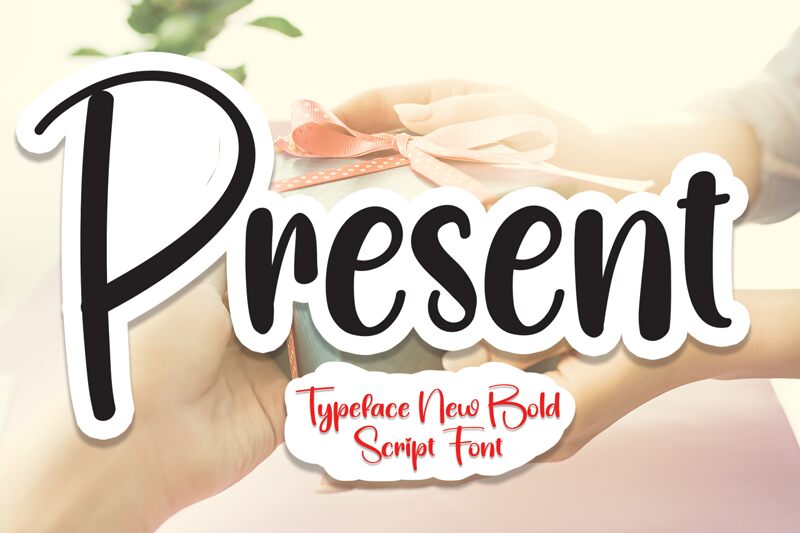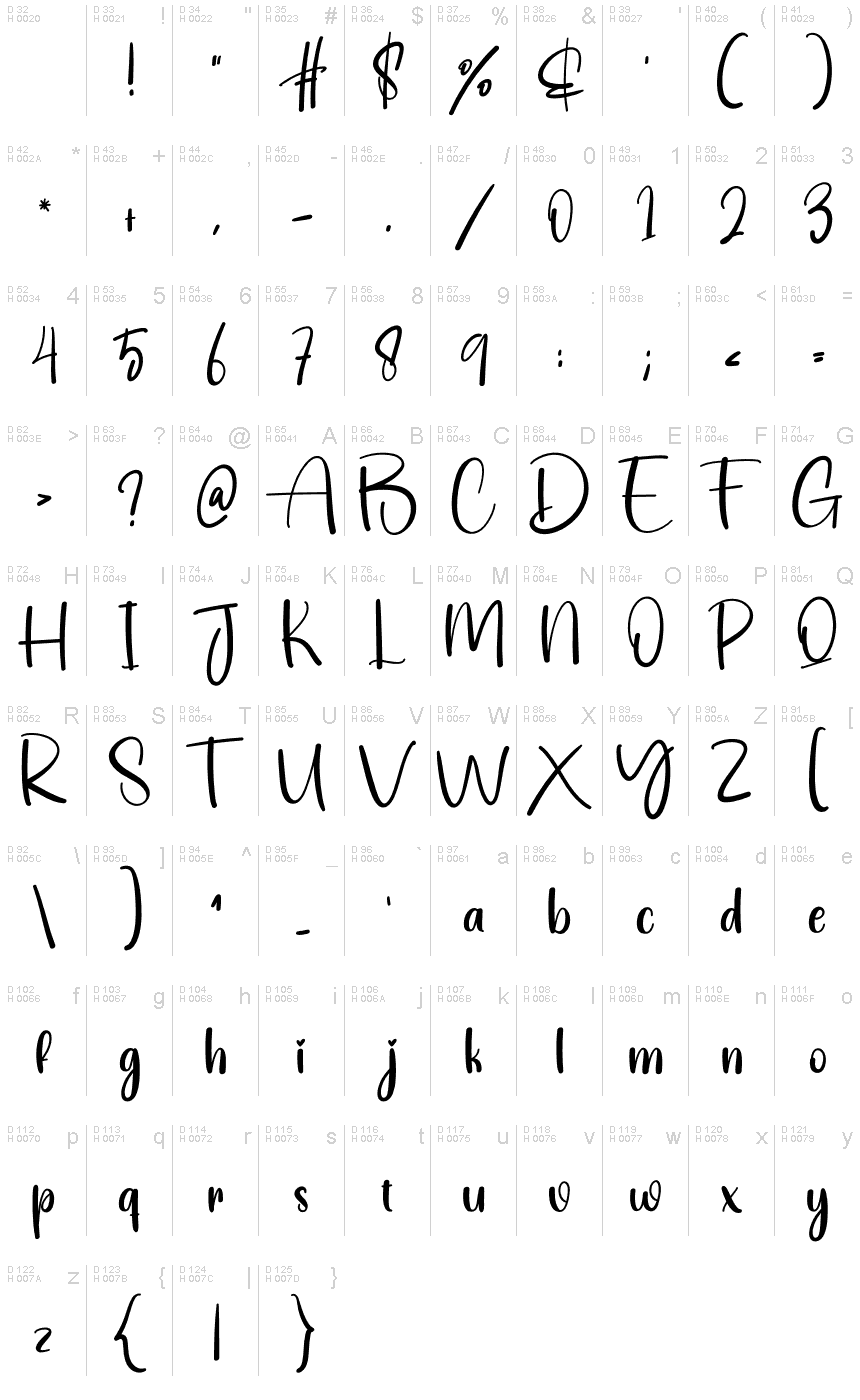
Present
Present, designed by Scratchones, embodies the charm of the handwritten touch with its semi-light weight that exudes a sense of casual elegance. The flowing curves and slight irregularities of Present offer a personal and approachable aesthetic that is both inviting and distinctive. Its handwritten style suggests warmth and authenticity, making it an excellent choice for designs seeking to convey intimacy and originality.
Visually, Present's semi-light strokes balance readability with artistic flair, ensuring that text remains clear while also providing a unique character to any layout. This font's versatility makes it ideal for a wide range of creative projects—from branding materials and packaging to personalized invitations or heartfelt greetings—adding a handcrafted essence that is often sought after in contemporary design.
Embrace the individuality of Present for your next project to add not just text, but a stroke of personal expression.